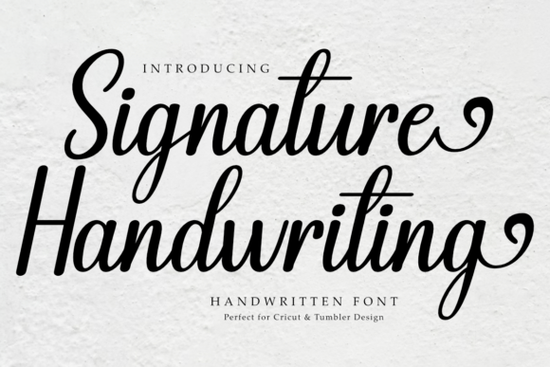
If you're looking for a clean, friendly handwritten font that works well across crafts, print-on-demand products, and classroom materials, the Signature Handwriting Font is a practical choice. It’s not overly decorative or hard to read just warm, natural, and easy to pair with other design elements. Whether you’re making teacher appreciation stickers, custom mugs, Cricut vinyl decals, or DIY greeting cards, this script font adds personality without sacrificing clarity.
What makes Signature Handwriting Font different from other script fonts?
Many handwritten fonts lean too casual (hard to read at small sizes) or too formal (feeling stiff or artificial). Signature Handwriting Font sits comfortably in the middle: it has gentle letter connections, consistent spacing, and subtle variation in stroke weight all of which help it look hand-drawn but still professional. Unlike some script fonts that require ligature setup or OpenType features to work right, this one uses standard characters and works out of the box in most design apps including Cricut Design Space, Silhouette Studio, Canva, and Adobe software.
Where does it work best?
This font shines where warmth and approachability matter most:
- Tumblers and mugs The rounded, open letterforms hold up well when heat-pressed or printed on curved surfaces.
- Classroom resources Think name tags, behavior charts, or bulletin board headers. It feels inviting but still legible for young readers.
- Stickers and labels Clean lines mean crisp cutting on vinyl or printable sticker paper.
- Teacher appreciation gifts Pair it with simple icons or watercolor textures for heartfelt, handmade-feeling designs.
- Digital downloads Works well in editable Canva templates or PDF planners where readability matters.
How to pair it with other fonts and design elements
Because Signature Handwriting Font is clean and neutral, it pairs easily with sans-serif or light serif fonts for contrast. Try using it for headlines or quotes, then switch to something like Montserrat or Lato for body text or captions. Avoid pairing it with other busy scripts two handwritten fonts together can feel cluttered.
For crafters using Cricut or Silhouette machines, keep kerning tight but not cramped letters like “a”, “e”, and “o” have soft curves that benefit from slight spacing adjustments. If you’re layering it over photos or textured backgrounds, add a subtle white stroke or shadow to improve contrast.